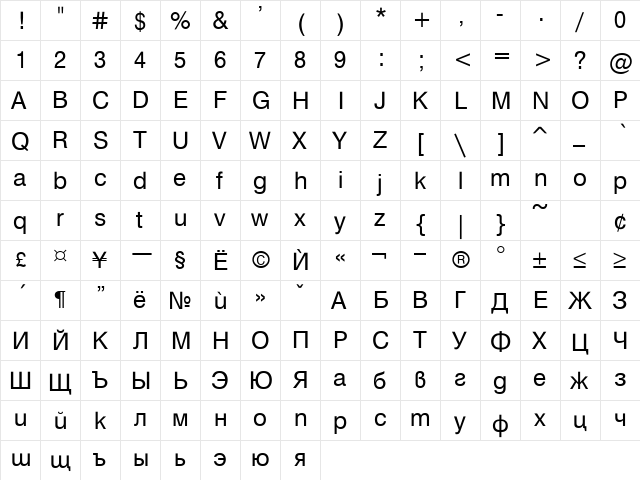
HebarB Normal
Design Context for HebarB Typeface
HebarB is a composed and adaptable typeface that performs quietly and consistently across a wide range of design contexts.
Pro Tip: Pair HebarB with a font of contrasting weight or personality to build a more expressive typographic hierarchy.